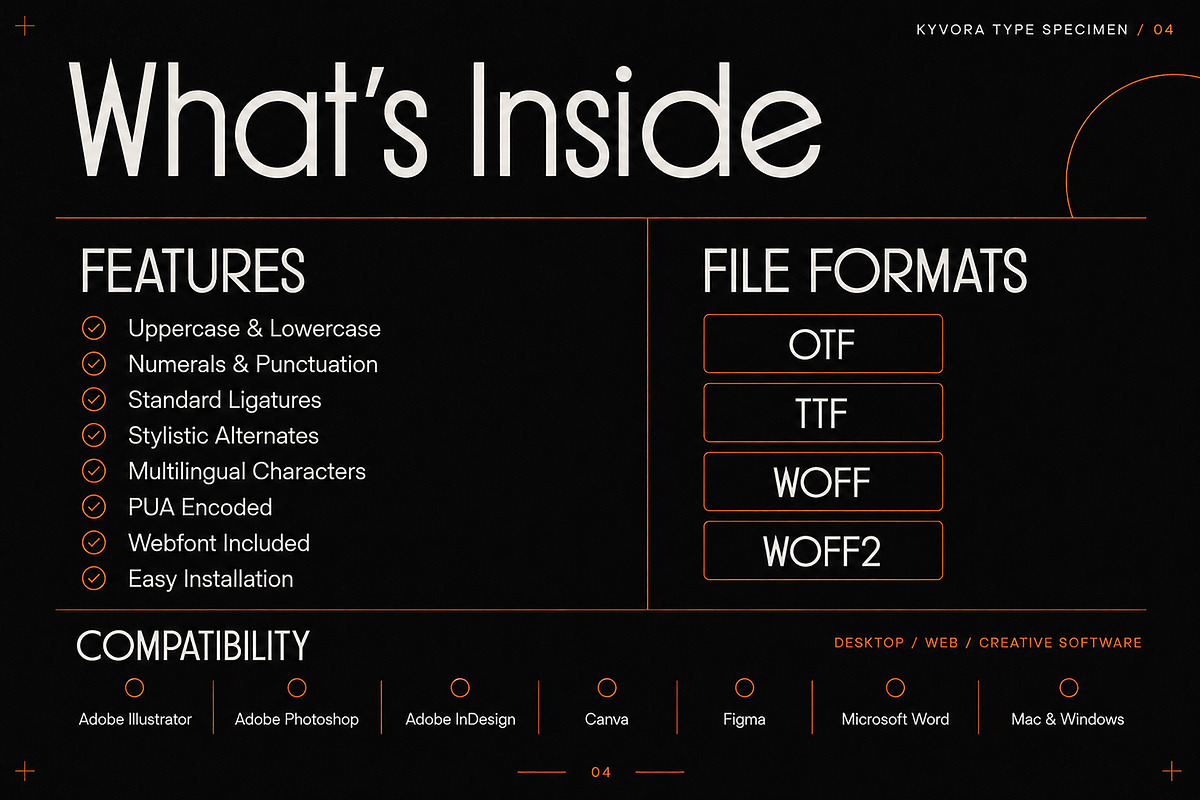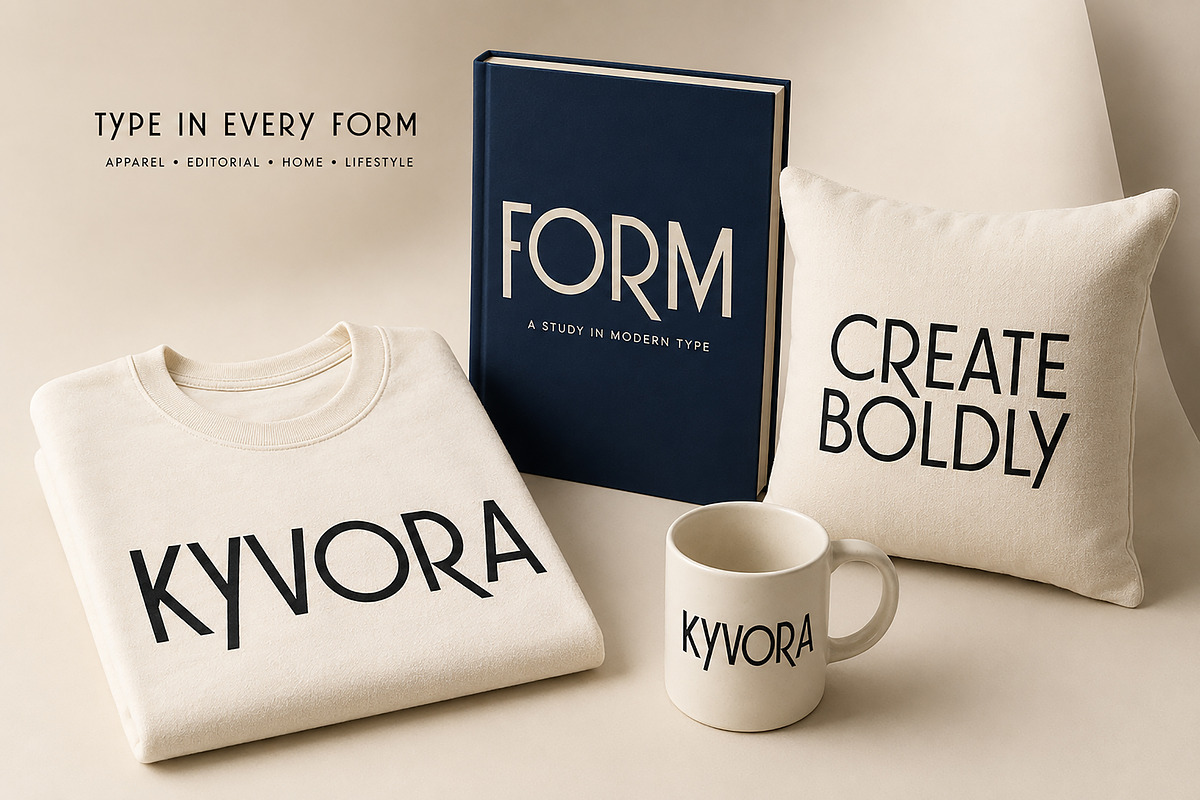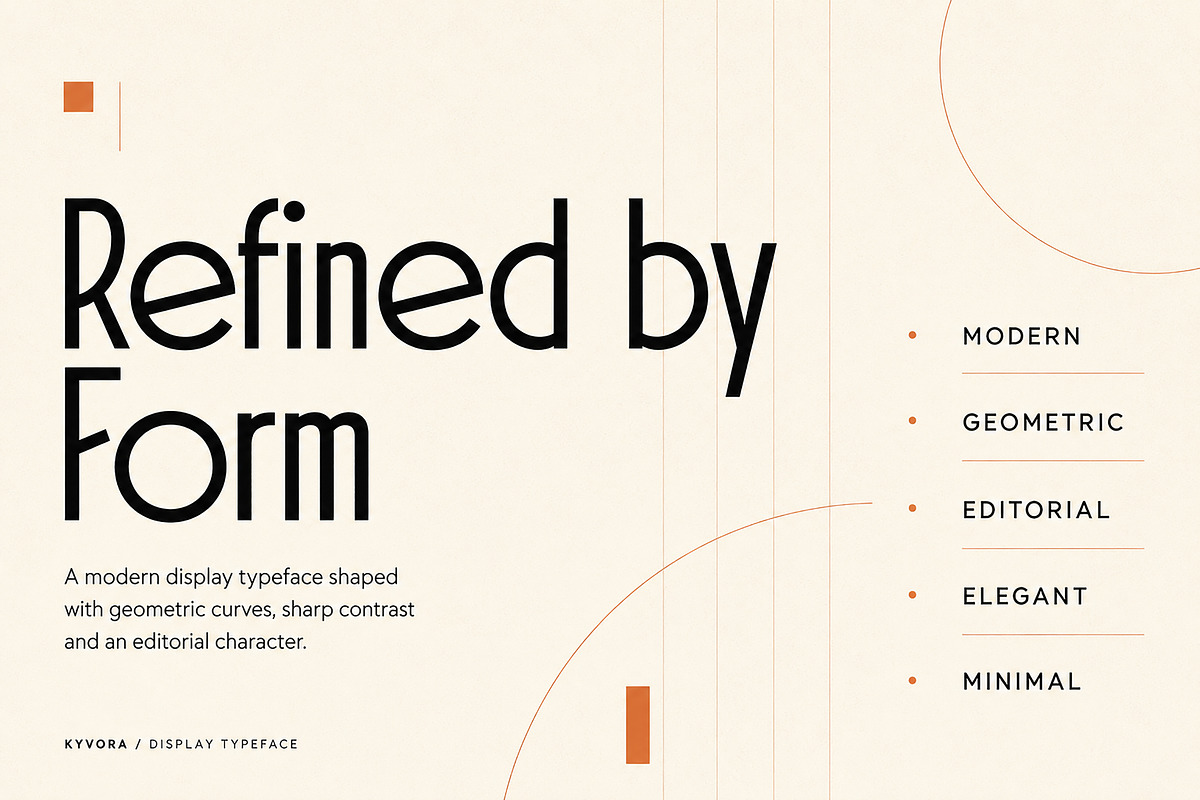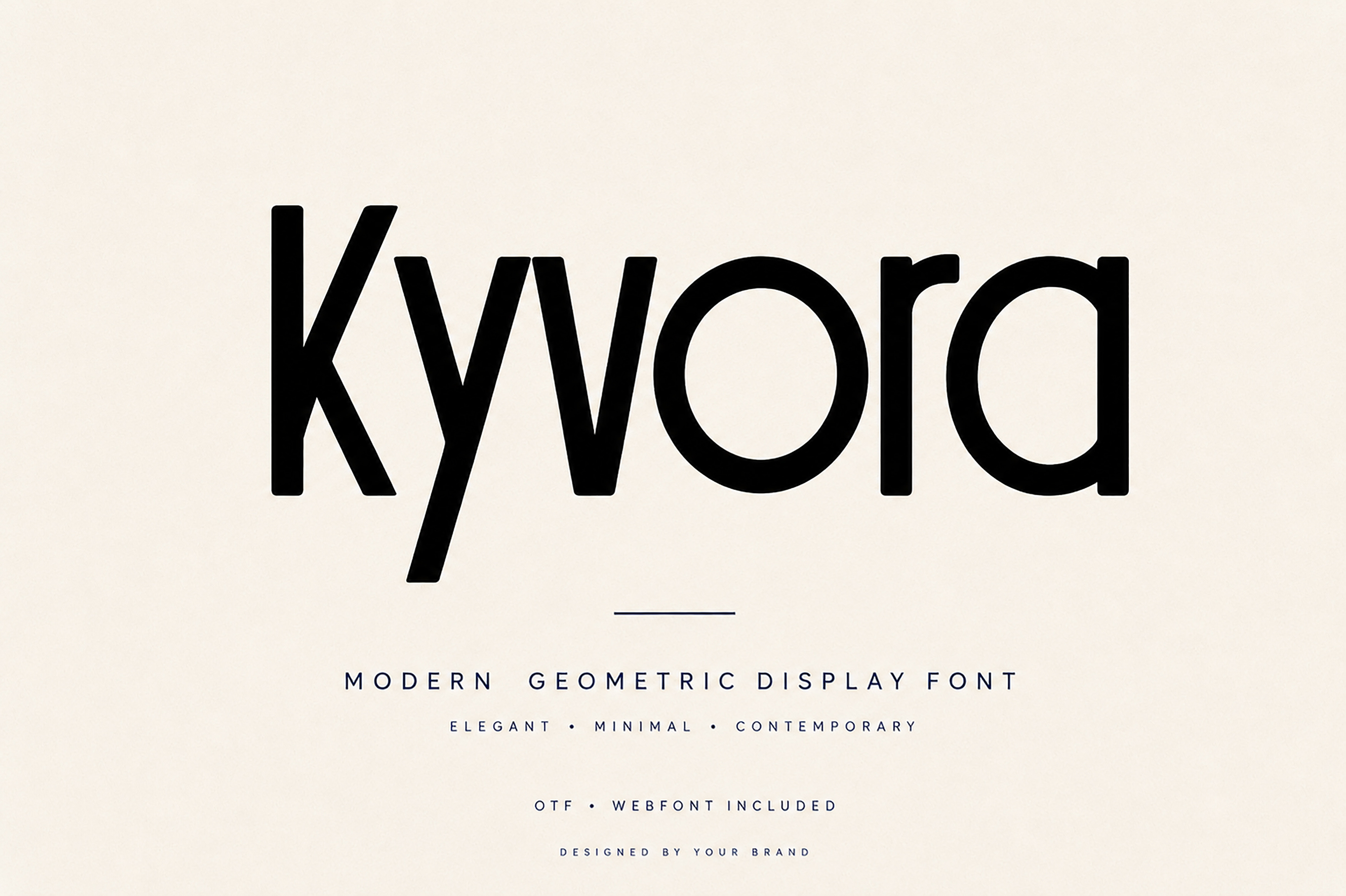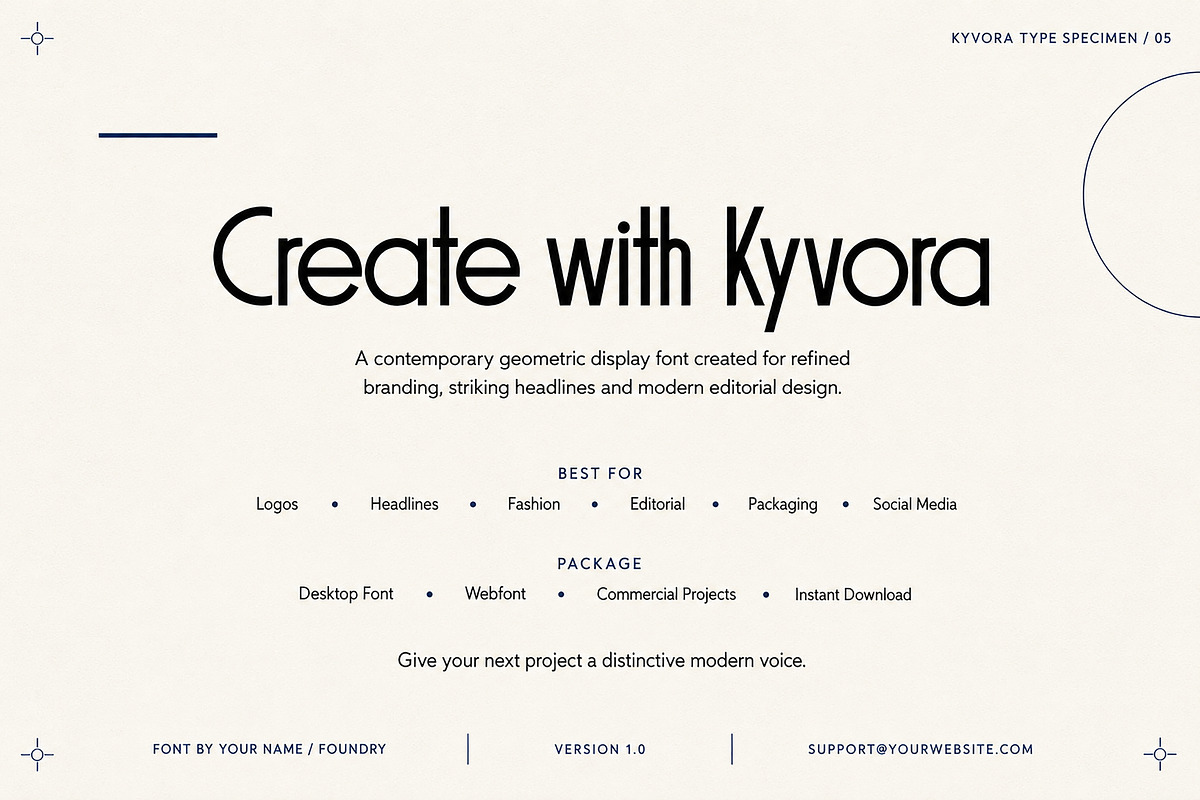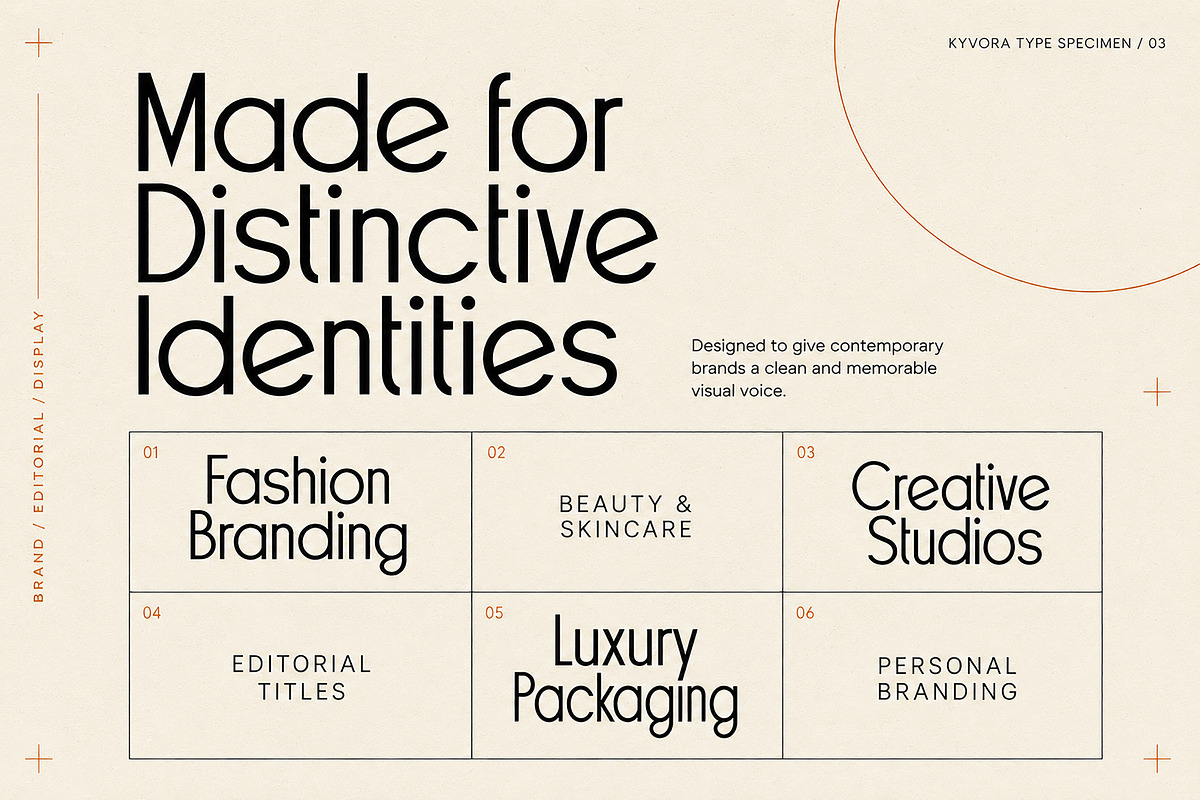
Kyvora – Modern Display Font
Kyvora – Modern Geometric Display Font
Meet Kyvora, a contemporary geometric display font created with elegant curves, distinctive proportions, and a refined editorial character. Its clean structure and modern appearance make it an excellent choice for designs that need to feel stylish, minimal, and memorable.
Kyvora works beautifully for logos, fashion branding, beauty and skincare identities, editorial headlines, packaging, book covers, social media graphics, apparel, merchandise, and other creative projects. Whether you are developing a sophisticated brand identity or a striking headline, Kyvora gives your work a confident and distinctive visual voice.
Logo and wordmark design
Fashion and beauty branding
Editorial titles and headlines
Luxury packaging
Book and magazine covers
Apparel and merchandise
Posters and advertising
Website headers
Personal and creative studio branding
Uppercase and lowercase letters
Numerals and punctuation
Modern geometric letterforms
Elegant editorial personality
Clean and distinctive appearance
Suitable for print and digital projects
Give your next project a clean, contemporary, and memorable identity with Kyvora.